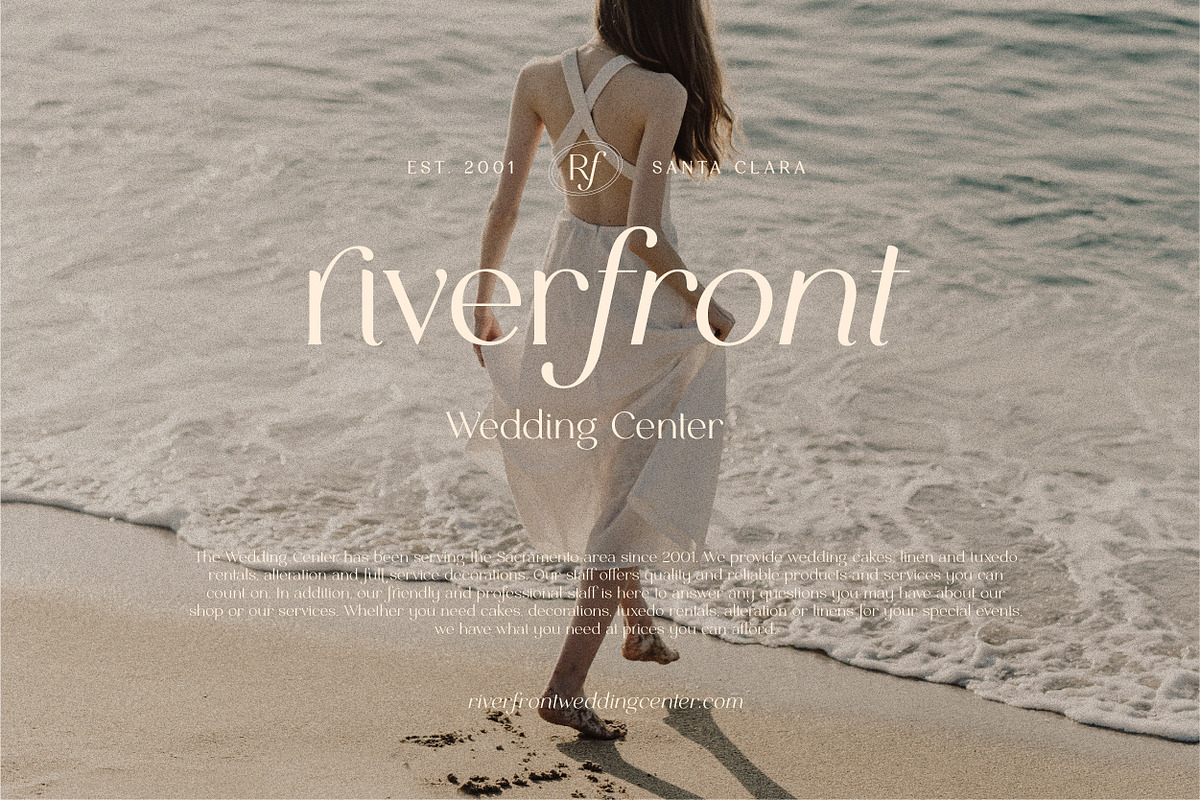
Celine Font is a clean and delicate serif typeface with a touch of playfulness. This typeface features many options of alternates and ligatures, perfectly suitable for creating designs such as packaging, logos or title.
Celine – Delicate Playful Serif Font Preview
This preview highlights the unique shapes and multi-height variations of the Celine Serif Font.